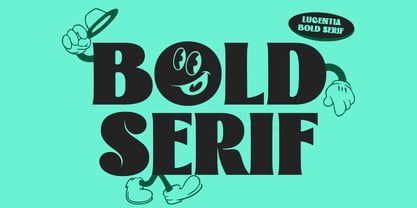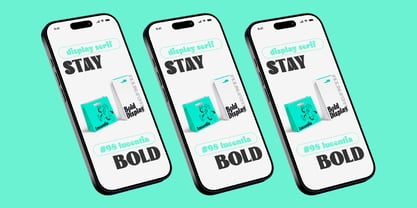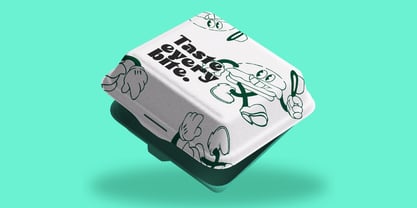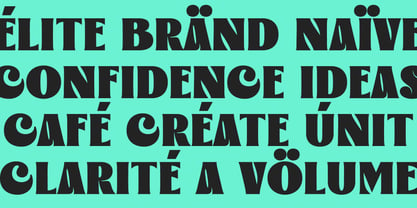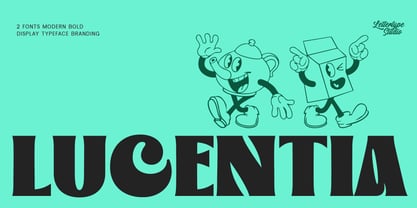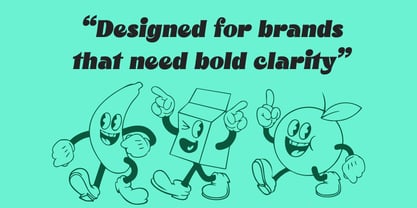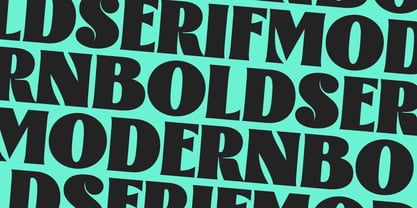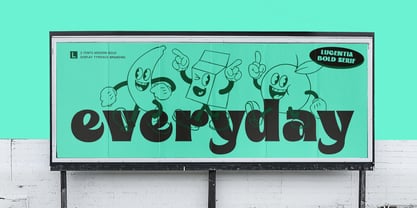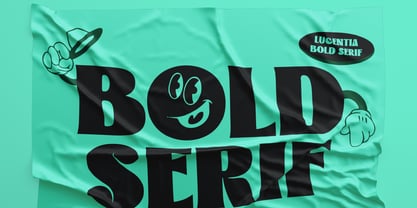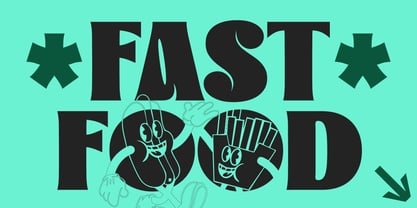
Lucentia
by Lettertype Studio
The Lucentia Font Family was designed by Diki Pradipta Tri Atmojo and published by Lettertype Studio. Lucentia contains 2 styles and family package options. More about this family
Lucentia is a modern bold display typeface designed to deliver strong visual presence with refined clarity. Built for contemporary branding needs, Lucentia balances bold proportions with clean geometry, making it ideal for logos, headlines, and high-impact editorial layouts. Its confident structure ensures excellent readability while maintaining a modern, professional character. Designed for designers who want bold typography without visual noise, Lucentia works seamlessly across digital and print applications. Whether used for brand identities, tech-forward visuals, or modern marketing assets, Lucentia provides a powerful typographic foundation that feels current, versatile, and timeless.